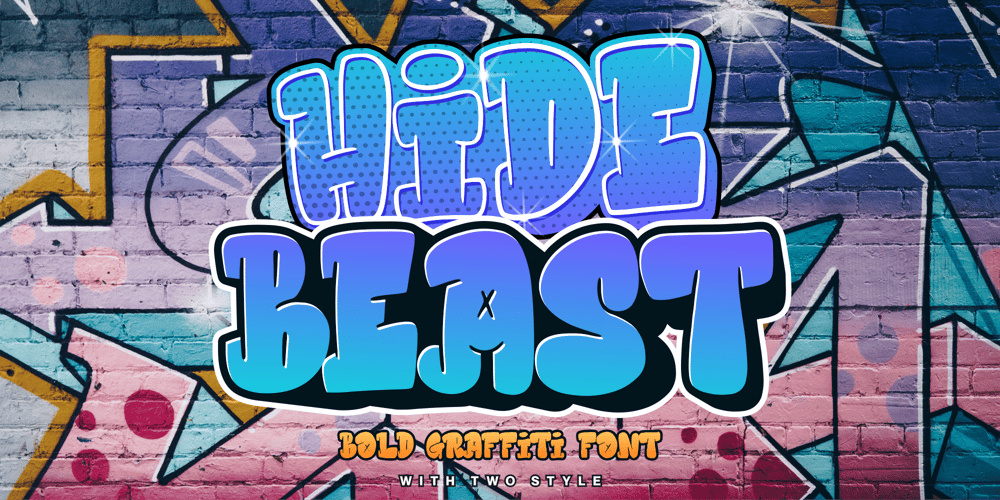
Hidebeast
Hidebeast font
Hidebeast Font Family was designed by Fachrizal Yusuf and published by Allouse Studio. Hidebeast contains 2 styles and family package options. Proudly Present, Hidebeast a Bold Graffiti Font With Two Styles.Hidebeast is perfect for any titles, logo, product packaging, branding project, megazine, social media, wedding, or just used to express words above the background.Both style come with Multi-Lingual Support.Enjoy the font, feel free to comment or feedback, send me PM or email. Thank You!